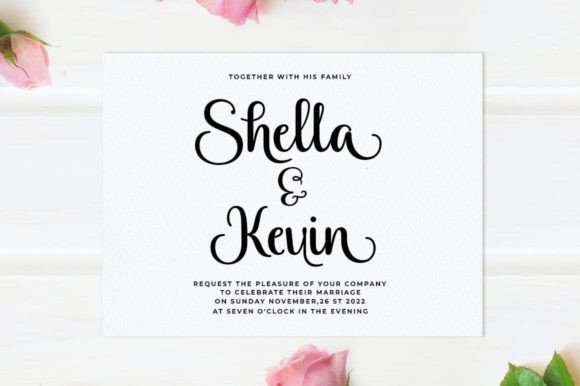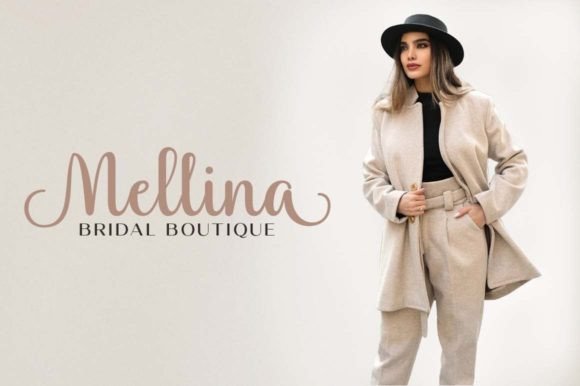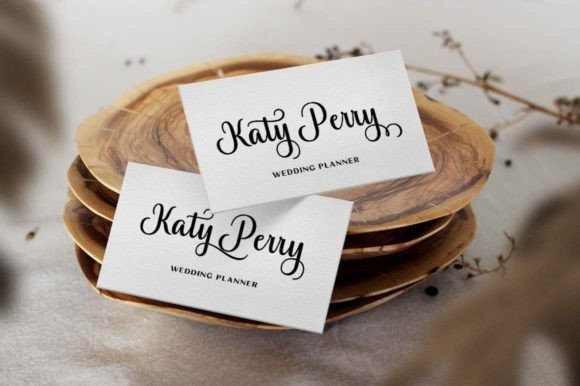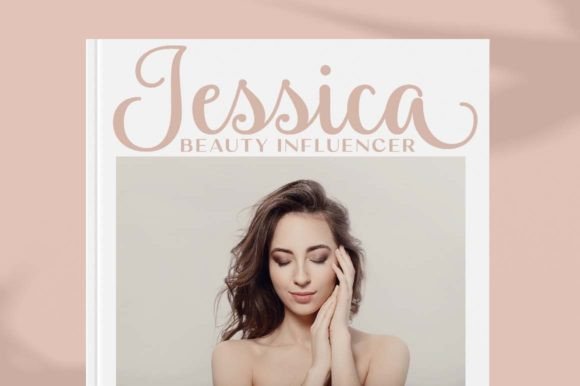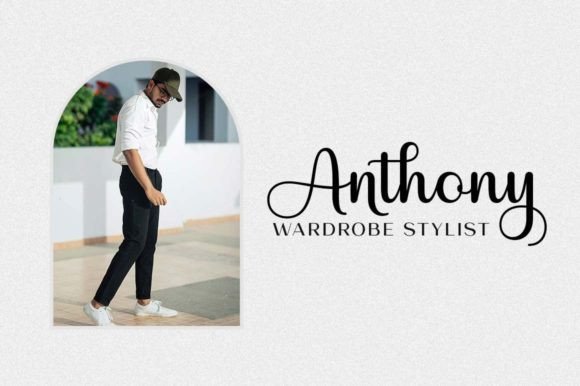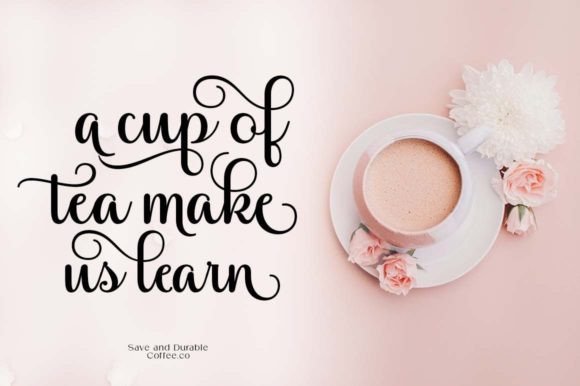
Introduction to Pamella Script Font
Have you ever been working on a creative project and come across the perfect font to bring your vision to life? For designers, finding the right font can make all the difference in making a project stand out. I recall working on a wedding invitation design and struggling to find a font that captured the romantic and elegant feel I was going for. That’s when I stumbled upon the Pamella Script Font – and my design woes disappeared.
This beautiful font has become a go-to design resource for many creatives, and for good reason. With its high quality and versatility, the Pamella Script Font can be used for a wide range of applications, from logos and branding to signage and posters. And the best part? It’s available for free download, complete with a transparent background and PUA encoded glyphs, making it easy to access and customize.
Whether you’re a seasoned designer or just starting out, the Pamella Script Font is a valuable addition to your design arsenal. Its elegant and fun script style makes it perfect for a variety of creative projects, and its high quality ensures that your designs will look professional and polished. In this article, we’ll take a closer look at the Pamella Script Font and explore its many uses and benefits.
Key Features of Pamella Script Font
- High-quality design resource ideal for creative projects and personal use.
- Unique, elegant script font with a transparent background, perfect for adding a touch of sophistication to designs.
- Available in a single size, making it easy to use across various design projects.
- Perfect for use in various design contexts, including invitations, logos, and social media graphics.
Honest Review: Pamella Script Font
I recently had the chance to work with the Pamella Script Font, and I must say it’s a great addition to any designer’s toolkit. ✨
This free download is perfect for any creative project that requires a touch of elegance and sophistication. The high-quality design is sure to elevate your work and make it stand out from the crowd.
Here are some of the things that I love about Pamella Script Font:
- Beautiful, flowing script that’s perfect for titles and headings
- High-quality design that’s sure to impress
- Transparent background makes it easy to work with
While Pamella Script Font is a great resource, there are a few limitations to be aware of: ⚠️
- Only a few weights are available, which can limit its versatility
- May not be suitable for projects that require a bold, sans-serif font
Overall, I’m really impressed with Pamella Script Font. It’s a great addition to any designer’s toolkit, and I’m sure you’ll love working with it as much as I do. Whether you’re working on a creative project or just need a high-quality font for your next design, Pamella Script Font is definitely worth checking out.
How to Use Pamella Script Font
To get the most out of the Pamella Script Font, experiment with different font sizes, colors, and combinations with other fonts. You can also use it to create beautiful titles, headings, and quotes.
The Pamella Script Font is perfect for wedding invitations, birthday cards, and other creative projects where a touch of elegance is required. It’s also great for designing quotes, posters, and social media graphics.
Does the Pamella Script Font have a transparent background?
Yes, the Pamella Script Font often comes with a transparent background, making it ideal for use on images or designs with complex backgrounds. This feature allows for seamless integration and easy customization of the font in your design project.